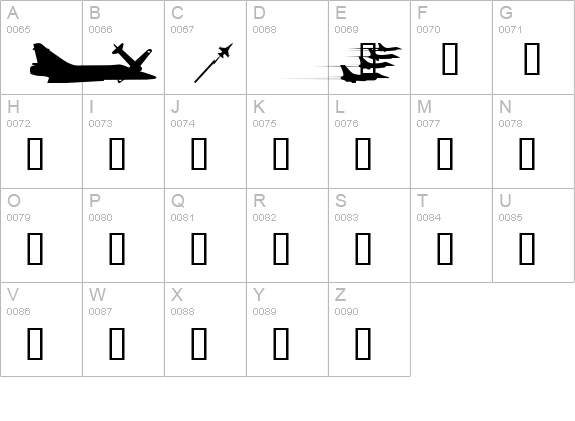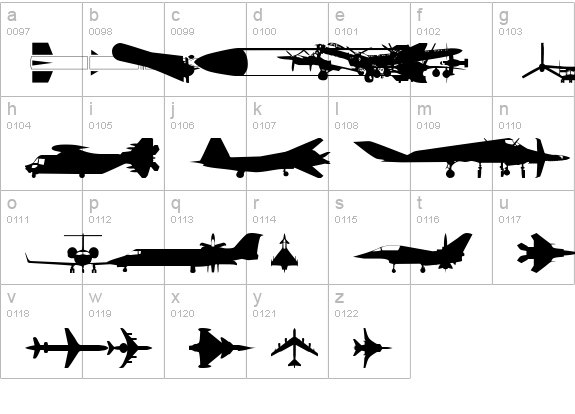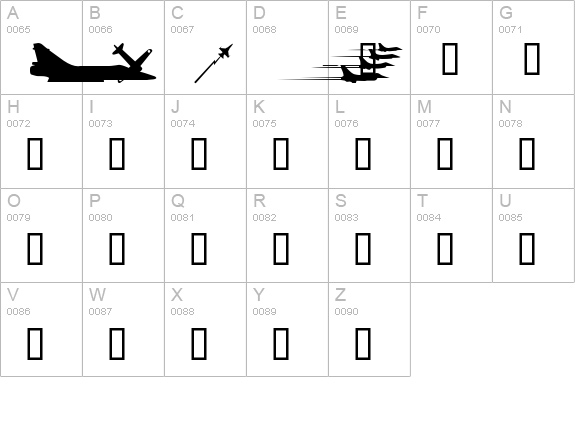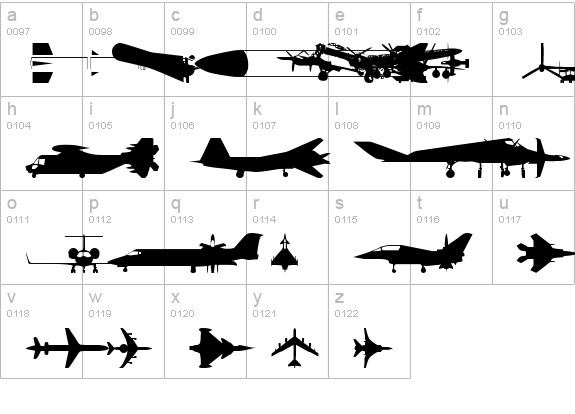
wmmilitary1 Font Details
Introducing wmmilitary1 font, a versatile typeface that exudes strength and authority with its bold and commanding design. This font features sharp edges and clean lines, making it perfect for projects that require a strong and impactful message. What's even better is that wmmilitary1 font is available for free download at FontsMarket.com, making it accessible to all designers and creatives looking to add a touch of power to their designs. Whether you're working on a military-themed project, a bold headline, or a striking poster, wmmilitary1 font is sure to make a statement and leave a lasting impression. Download wmmilitary1 font today and unleash its commanding presence in your next design project!